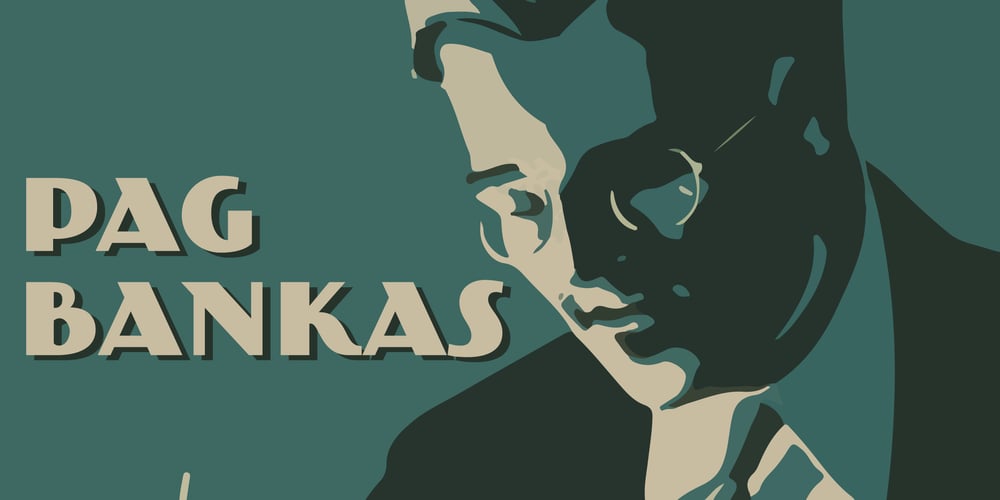
PAG Bankas Font Family was designed by Ryoichi Tsunekawa and published by Prop-a-ganda. PAG Bankas contains 1 styles and family package options. Prop-a-ganda offers retro-flavored fonts inspired by lettering on retro propaganda posters, retro advertising posters, retro packages all the world over. This is perfect font for your retrospective project. PAG Bankas is a vintage and old-fashioned that we can find in the posters of old silent film. Bankas’s retro forms lend itself to many design projects from branding to packaging, magazine headlines and so on.